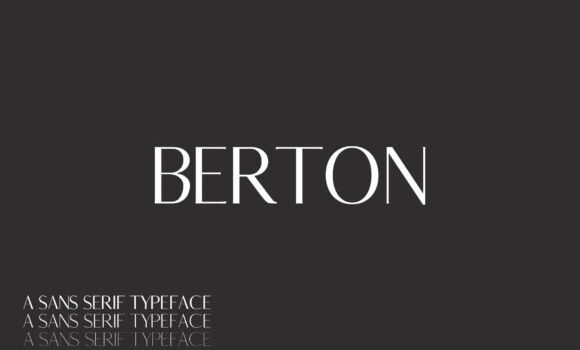
Berton Family Font – Free Download Introduction to Berton Family Font Berton is a classy and timeless sans serif font family. 📸 Preview Gallery 5 images 📌 Product Name Berton Family Font 👤 Author creativetacos 📂 Category Explore ⬇️ Download